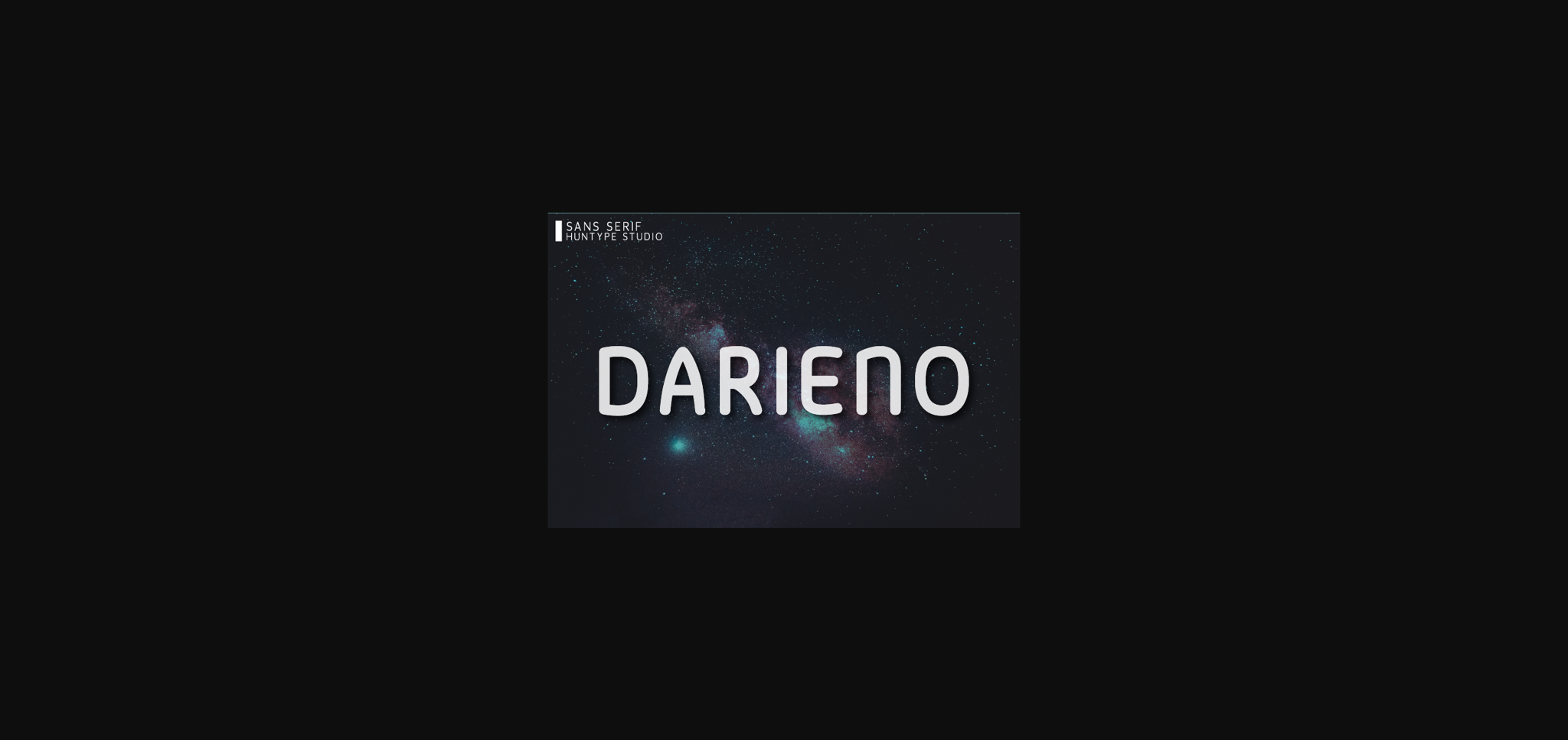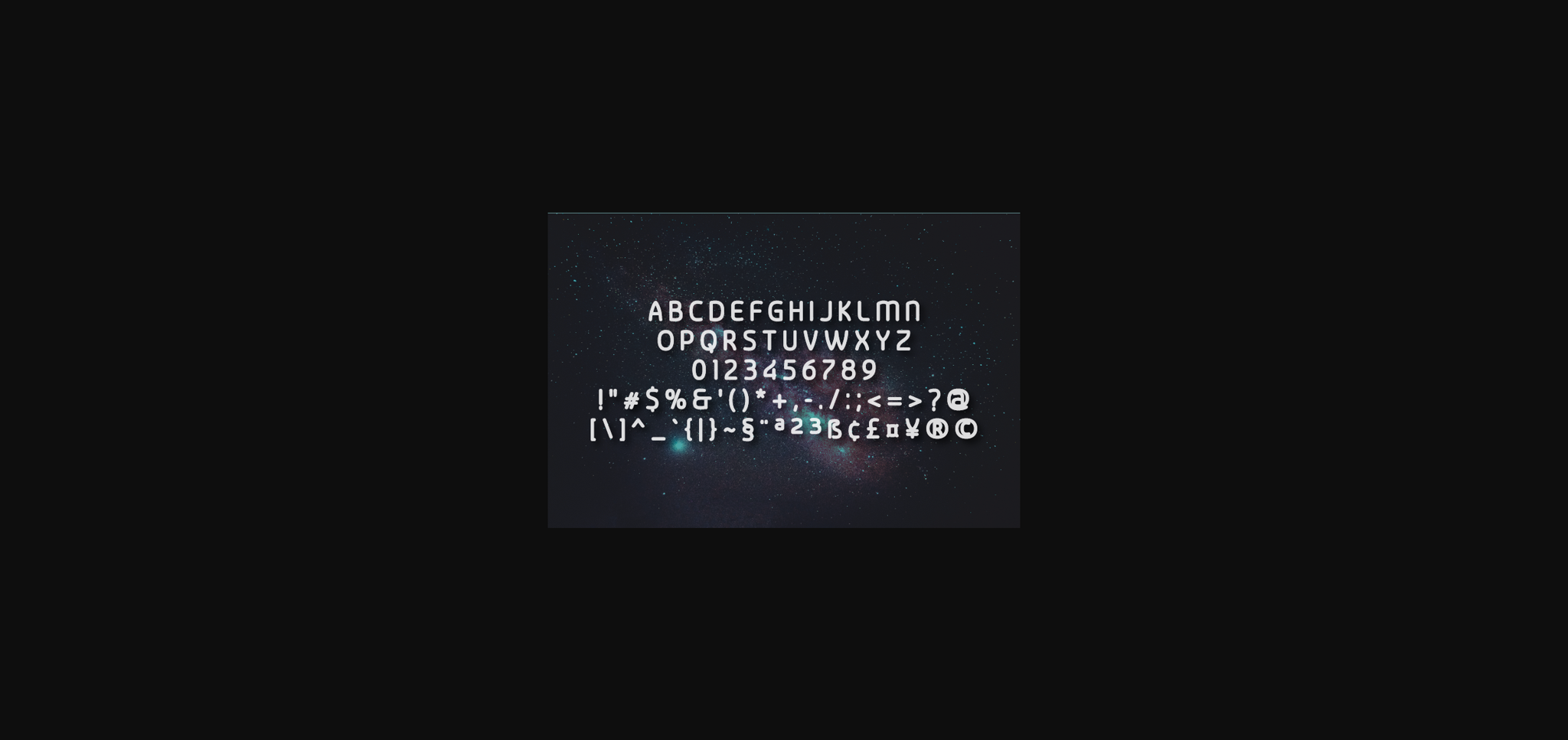
Darieno Font
About Darieno Font
Darieno is a simple and modern sans serif font with an undeniably clean feel. With its neat and beautiful arrangement of letters, this typeface will look outstanding in both formal and non-formal designs.